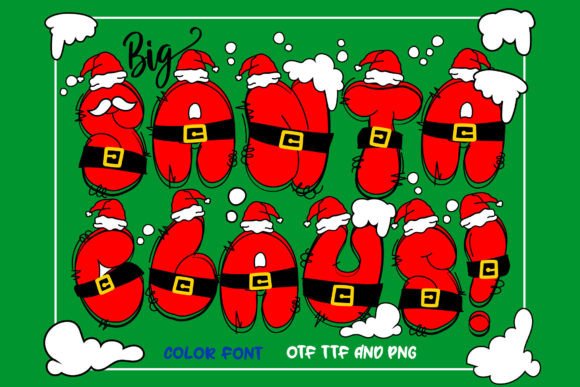
The Magic of Big Santa Claus! Font: A Designer’s Delight
It’s the most wonderful time of the year – and I’m not just talking about the holiday season! As a designer, I live for those moments when I stumble upon a font that makes my creative heart sing. And, trust me, Big Santa Claus! font is one such gem. Imagine you’re working on a festive project, and you need a font that’s fun, bold, and screams holiday cheer. That’s where Big Santa Claus! comes in – a cool, thick lettered, and fun color font that’s sure to make your designs merry and bright!
A Personal Design Moment: The Struggle is Real
I recall working on a project for a client who wanted a custom holiday card with a very specific, playful vibe. I scoured the internet for the perfect font, but nothing seemed quite right – until I found Big Santa Claus! It was love at first sight! The font’s quirky charm and bold personality perfectly captured the essence of the holiday season. I knew right then and there that I had to share this fantastic find with fellow designers and crafters.
• ✨ PUA Encoding: Big Santa Claus! font is PUA encoded, making it super easy to access all the glyphs and swashes. No more tedious searching for the perfect character!
• ✅ Fun and Festive: This font is the epitome of holiday cheer. Its bold, thick letters are perfect for creating eye-catching designs that scream fun and festivity.
• 🎉 Color Version: The color version of this font is a game-changer. Imagine being able to add a pop of color to your designs with just a few clicks!
The Designer Inspiration Behind Big Santa Claus! Font
Big Santa Claus! font was designed with the holiday season in mind. The creator wanted to craft a font that would bring joy and festivity to designs. With its bold, thick letters and fun color version, it’s clear that this font was made to spread holiday cheer!